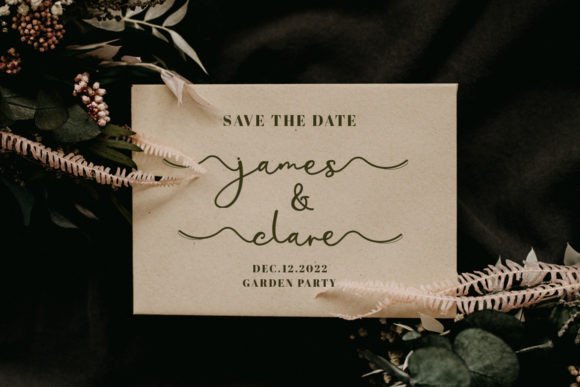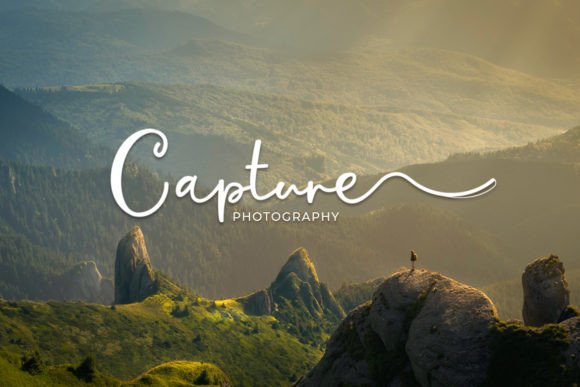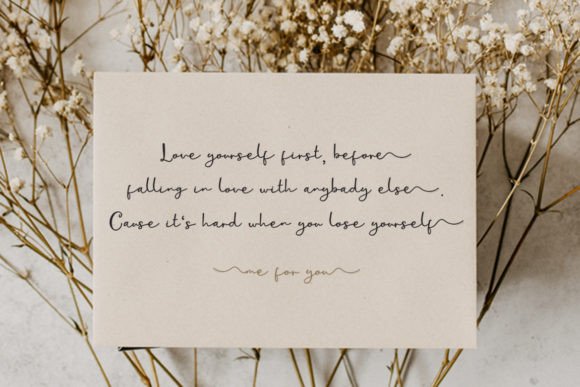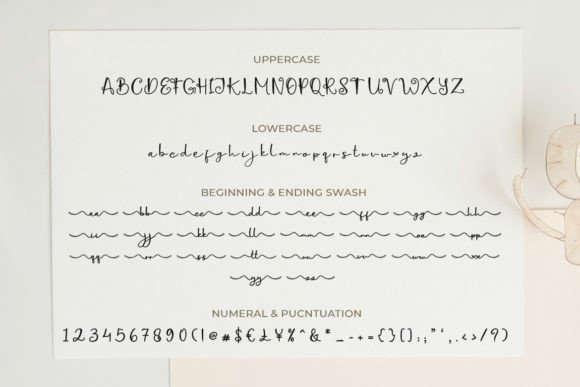
Add elegance and charm with the Guyfrost font. This font is based on original handwriting and made with careful detail. It features beautiful beginning and ending swashes that add flair to your designs.
The Guyfrost font is perfect for apparel such as T-shirts and hoodies. It also works great for quotes, product packaging, branding, and blog posts. Moreover, it fits greeting cards, labels, posters, and wall art.
Each character is crafted with attention to detail. The smooth, flowing lines give your projects a polished and sophisticated look. This font balances artistic style with readability, making it ideal for logos, headlines, and decorative text.
Despite its decorative swashes, the Guyfrost font remains readable at various sizes. Whether you need bold titles or subtle accents, this font adapts well. Its versatility makes it suitable for many creative projects.
Using the Guyfrost font will make your designs stand out. It adds a stylish and unique vibe. If you want your work to look professional and eye-catching, the Guyfrostfont is an excellent choice.
In summary, the Guyfrostfont fits many design needs. From apparel to packaging and posters, it brings elegance and personality. Download it today and create memorable, sophisticated designs with a beautiful handwritten script.